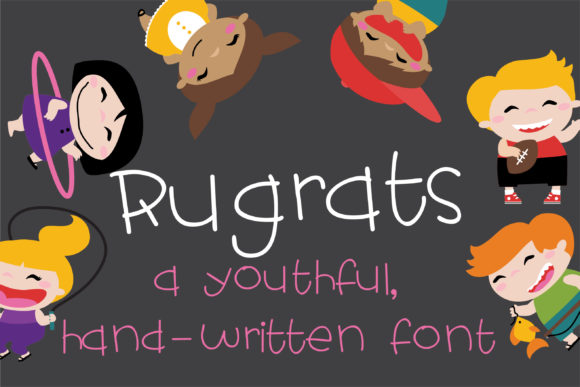
Are you looking for a font that exudes playful charm and heartwarming nostalgia? Look no further than ZP Rugrats Font - the ultimate font for preschool adventures! Created by the talented team at Illustration Ink, this enchanting script font captures the magic of childhood and brings designs to life.
ZP Rugrats Font is a handwritten masterpiece that oozes personality and charisma. Its playful strokes and endearing curves evoke a sense of childlike wonder, making it the perfect choice for any project aimed at young audiences. Unleash your creativity with this captivating font and let your designs shine with a touch of whimsy and delight.
Imagine transforming your preschool lessons, worksheets, and classroom presentations with the ZP Rugrats Font. Its cheerful demeanor will engage young minds, making learning an exciting and enjoyable experience. Create eye-catching posters, banners, and invitations that radiate warmth and fun. This extraordinary font will leave a lasting impression on parents and children alike.
Beyond the classroom, ZP Rugrats Font will be your trusty companion in crafting personalized gifts for your little ones. Create heartfelt cards, scrapbook pages, and photo albums that encapsulate the special moments of childhood. With this delightful font, your handmade creations will overflow with love and joy.